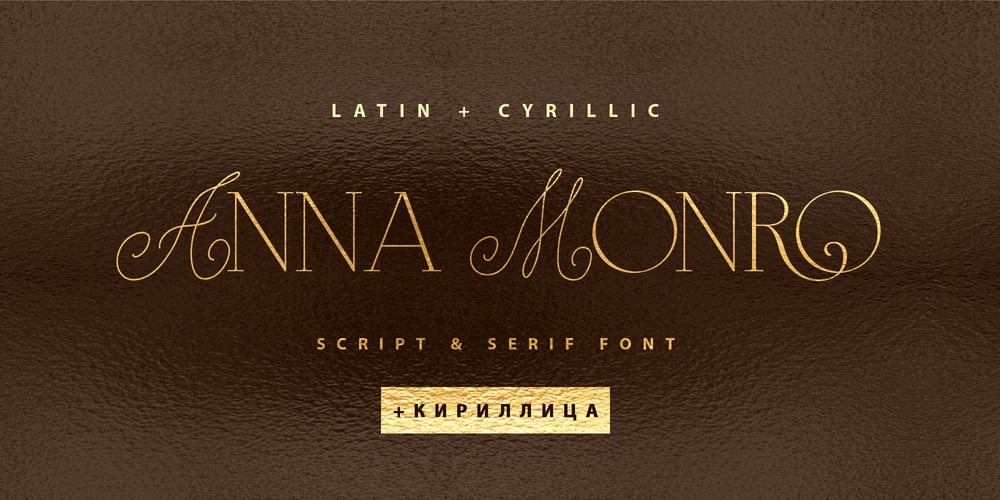
Anna Monro Cyrillic Font Family was designed by Iryna Dviliuk and published by Ira Dvilyuk. Anna Monro Cyrillic contains 1 styles and family package options. Anna Monro Script Serif Font is a font with Uppercase Serif Letters in lowercase glyph positions and Script Fluorishes Uppercase Letters in uppercase glyph positions. The Anna Monro Script Serif Font will be perfect for branding, logos, wedding stationery, social media, packaging, and other projects that require an elegant touch.Latin part contains 29 ligatures which you can get by typing the number 1 after letters such as OC1 KO1 Lu1…The Cyrillic part also contains 15 ligaturesMultilingual Support for 34 languages: Latin glyphs for Afrikaans, Albanian, Basque, Bosnian, Catalan, Danish, Dutch, English, Estonian, Faroese, Filipino, Finnish, French, Galician, Indonesian, Irish, Italian, Malay, Norwegian Bokmål, Portuguese, Slovenian, Spanish, Swahili, Swedish, Turkish, Welsh, Zulu. Ukraine Sale fonts.Cyrillic font supports Russian, Belorussian, Bulgarian, Ukrainian, Mongolian and Kazakh languages.